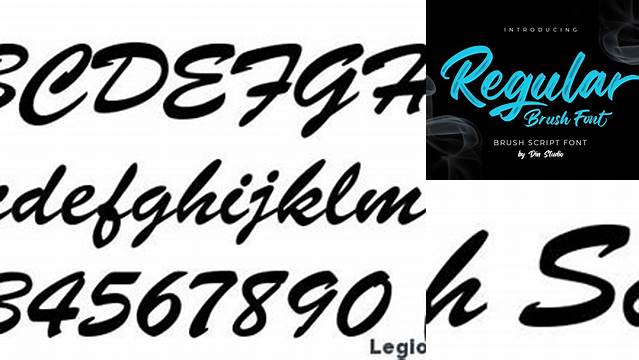
Brush Script Regular Font: An Overview
The brush script regular font is a classic choice for designers and creatives alike. Its flowing, handwritten style adds a touch of sophistication and personality to any design. Whether you're working on invitations, logos, or website headers, this font can truly make your work shine. But before we get into the nitty-gritty of downloading, let's explore what makes this font so special. The beauty of brush script regular font lies in its versatility. It’s not just a pretty face; it’s a workhorse that can adapt to various design contexts. Think of wedding invitations with elegant calligraphy, logos that exude a personal touch, or website headers that grab attention with their stylish flair. This font isn't confined to a single genre or style; it seamlessly integrates into both modern and vintage designs. Imagine using brush script regular font for a vintage-themed poster, the swirling strokes adding a nostalgic charm. Or, picture it gracing the pages of a contemporary magazine, its elegant curves providing a sophisticated contrast to clean, minimalist layouts. The possibilities are endless, and that’s what makes this font a staple in any designer’s toolkit. Moreover, the brush script regular font isn't just visually appealing; it's also incredibly legible. While some script fonts can be challenging to read, especially in larger blocks of text, the brush script regular font strikes a perfect balance between style and clarity. This makes it ideal for a wide range of applications, from print materials to digital designs. You can confidently use it for headings, subheadings, and even shorter paragraphs without worrying about readability issues. The attention to detail in each character ensures that your message is conveyed clearly and elegantly.
1. What is Brush Script Regular Font?
So, what exactly is the brush script regular font? It’s a typeface that mimics the look of handwritten script created with a brush. Think smooth strokes, elegant curves, and a personal touch. This makes it a fantastic option for projects where you want to convey warmth, creativity, and authenticity. The brush script regular font family is a treasure trove of variations, each offering a unique flavor to your design palette. From the classic, flowing lines of the original to bold, impactful versions, there's a brush script for every mood and project. Imagine needing a font that exudes elegance for a wedding invitation – the delicate, swirling strokes of a lighter brush script would be perfect. Now, picture designing a logo for a trendy coffee shop; a bolder, more assertive brush script could convey a sense of energy and modernity. Exploring these variations allows you to fine-tune your message, ensuring it resonates perfectly with your target audience. Beyond aesthetics, the technical aspects of the brush script regular font are equally impressive. Designers meticulously craft each character, paying close attention to the flow and rhythm of the strokes. This dedication to detail ensures that the font looks natural and authentic, as if it were hand-lettered. The kerning, which is the spacing between letters, is carefully adjusted to maintain readability and visual harmony. This level of precision is what separates a good font from a great one, and it's a hallmark of the brush script regular font. Furthermore, the versatility of the brush script regular font extends to its compatibility with various design software and platforms. Whether you're using Adobe Photoshop, Illustrator, or even a simple word processor, you can seamlessly integrate this font into your workflow. This ease of use makes it an accessible option for both professional designers and hobbyists alike. You don't need to be a typography expert to appreciate the beauty and functionality of this font; its intuitive nature allows you to focus on your creative vision without technical hurdles.
2. The History and Evolution of Brush Script Fonts
The history of brush script fonts is quite fascinating! It traces back to the art of calligraphy, where skilled artists used brushes to create beautiful, flowing letterforms. Over time, these techniques were adapted into the world of typography, giving birth to the brush script fonts we know and love today. The evolution of brush script fonts is a fascinating journey through the annals of typography, reflecting changing tastes, technological advancements, and the enduring appeal of handcrafted aesthetics. Its roots lie deep in the ancient art of calligraphy, where skilled scribes wielded brushes and quills to create elegant, flowing letterforms. These calligraphic styles, imbued with a sense of artistry and personality, laid the foundation for what would eventually become the brush script regular font family. In the mid-20th century, with the rise of commercial printing, brush script fonts began to gain traction in the advertising and design industries. Their ability to convey a sense of authenticity and personal touch made them ideal for branding, signage, and promotional materials. Fonts like Brush Script MT, released in 1942, became instant classics, their graceful strokes and rhythmic flow capturing the essence of handwritten elegance. This era marked a golden age for brush script regular fonts, with designers embracing their versatility and incorporating them into a wide range of applications. The digital revolution brought about a new chapter in the evolution of brush script fonts. The advent of computer-aided design tools allowed typographers to create increasingly complex and nuanced letterforms, pushing the boundaries of what was possible. Digital brush script regular fonts offered greater precision and control, enabling designers to fine-tune every curve and stroke. This led to a proliferation of new styles and variations, from clean and modern interpretations to more expressive and textured designs. Today, the brush script regular font family continues to thrive, its timeless appeal undiminished. It remains a popular choice for designers seeking to add a touch of personality and sophistication to their work. The ongoing evolution of this font category is driven by both technological advancements and the enduring human desire for handcrafted aesthetics. Whether it's a classic revival or a bold new interpretation, the brush script regular font is sure to remain a staple in the designer's toolkit for years to come.
3. Why Choose Brush Script Regular Font?
Why should you choose the brush script regular font? Well, it's all about the vibe! This font adds a touch of elegance, warmth, and personality to your designs. It's perfect for projects that need a human touch, like wedding invites, logos, and branding materials. There are so many reasons to choose the brush script regular font for your design projects, each stemming from its unique blend of style, versatility, and emotional resonance. At its core, this font offers a distinctive aesthetic that sets it apart from more conventional typefaces. Its flowing, handwritten strokes evoke a sense of warmth, authenticity, and personal touch, making it ideal for projects that aim to connect with the audience on an emotional level. Whether it's a heartfelt greeting card, a romantic wedding invitation, or a branding campaign that emphasizes human values, the brush script regular font can effectively convey the desired message. Beyond its emotional appeal, the brush script regular font boasts remarkable versatility. It's not confined to a single design genre or style; it seamlessly integrates into a wide range of applications. Imagine using it to create a sophisticated logo for a high-end fashion brand, its elegant curves conveying a sense of luxury and refinement. Now, picture it gracing the pages of a children's book, its playful strokes adding a touch of whimsy and charm. The ability to adapt to different contexts is what makes this font a valuable asset for any designer. Moreover, the brush script regular font can enhance the readability of your designs, provided it's used judiciously. While it's not ideal for large blocks of body text, it excels in headlines, subheadings, and short bursts of text. Its distinctive letterforms grab attention and create visual interest, guiding the reader's eye through the content. This makes it an effective tool for creating impactful layouts and conveying key messages. The technical aspects of the brush script regular font also contribute to its appeal. High-quality versions of this font are meticulously crafted, with careful attention paid to details like kerning, leading, and character spacing. This ensures that the font looks polished and professional, regardless of the size or medium in which it's used. The investment in a well-designed brush script regular font can significantly elevate the overall quality of your project.
4. Key Features of Brush Script Regular
Let's talk about the key features. The brush script regular font stands out with its flowing lines, elegant curves, and handwritten feel. It often includes swashes and ligatures, adding to its unique charm. Plus, it usually comes in various weights and styles, giving you plenty of options to play with. The brush script regular font is characterized by a constellation of key features that contribute to its unique aesthetic and functional appeal. These features, meticulously crafted by typographers, are what set it apart from other script fonts and make it a versatile tool for designers. One of the most defining characteristics of the brush script regular font is its flowing, cursive strokes. These strokes mimic the natural movements of a brush or pen, creating a sense of fluidity and dynamism. The letterforms seem to dance across the page, adding a touch of elegance and sophistication to any design. This inherent flow is what makes the font so visually appealing and engaging. Another key feature of the brush script regular font is the presence of swashes and ligatures. Swashes are decorative extensions of the letterforms, often appearing at the beginning or end of words. They add a touch of flair and ornamentation, enhancing the overall visual impact. Ligatures, on the other hand, are special characters that combine two or more letters into a single glyph. They improve the flow and readability of the text by eliminating awkward spacing and creating a more cohesive look. The intelligent use of swashes and ligatures can elevate a design from ordinary to extraordinary. The brush script regular font often comes in a variety of weights and styles, providing designers with a wide range of options to choose from. These variations can include light, regular, bold, and italic versions, each offering a different flavor to the overall design. A light weight might be perfect for delicate wedding invitations, while a bold weight could be used to create eye-catching headlines. The availability of different styles allows designers to tailor the font to the specific needs of their project. Furthermore, the best versions of the brush script regular font are meticulously designed with careful attention to details like kerning, leading, and character spacing. Kerning refers to the adjustment of the space between individual letters, ensuring that they appear balanced and harmonious. Leading is the vertical space between lines of text, impacting readability and visual flow. Character spacing, also known as tracking, is the overall spacing between letters in a word or phrase. These subtle details can make a significant difference in the overall quality and legibility of the font.